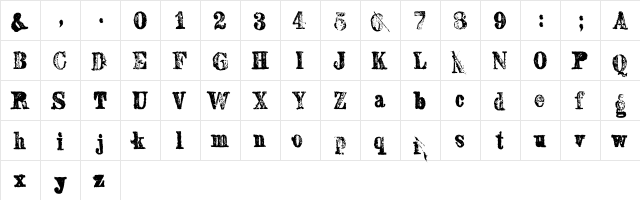
SextonSerif Regular
Design Context for SextonSerif Typeface
SextonSerif carries the refined structure of traditional serif typography, with bracketed terminals and considered proportions that communicate credibility and craft.